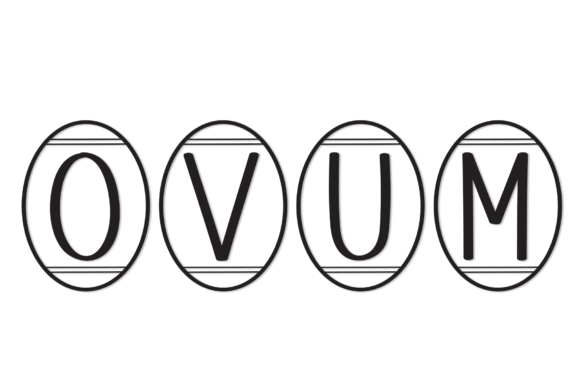
Journey into the Realm of Artistic Expression with Ovum Font, a Decorative Masterpiece
In the vast world of typography, there lies a font that captivates the essence of elegance and artistry - Ovum Font. This decorative masterpiece, crafted by the skilled hands of Roronoa Zoro S.P.D., is an eloquent testament to the power of visual storytelling. With its sweeping curves, delicate flourishes, and intricate details, Ovum Font transcends the boundaries of ordinary type, inviting you to embark on a creative odyssey like no other.
As you delve into the depths of Ovum Font's characters, you'll discover a symphony of form and function. Each letter, meticulously designed with the utmost care, carries the weight of history and the promise of endless possibility. Whether you're a seasoned designer seeking to elevate your projects or a budding artist yearning to leave your mark on the world, Ovum Font is your trusted companion, ready to breathe life into your creative visions.
Step into the spotlight with Ovum Font, and watch as your words dance across the page, captivating audiences with their grace and charm. Whether you're crafting film scripts, greeting cards, invitations, or branding materials, Ovum Font possesses the versatility to transform your ideas into stunning visual experiences. Its organic and beautiful form adds a touch of sophistication to any project, leaving an indelible impression that lingers in the minds of your viewers.
With Ovum Font at your fingertips, you'll find yourself effortlessly weaving tales that transport readers to enchanted realms, ignite imaginations, and stir hearts. Its delicate ornaments, reminiscent of bygone eras, lend an air of timeless elegance to your creations, ensuring that your messages resonate with a profound impact.
Welcome Ovum Font into your creative arsenal, and unlock a world of possibilities. As you explore the depths of its artistry, you'll discover a font that not only elevates your designs but also reflects your unique style and personality. Let Ovum Font be your muse, your faithful companion on the journey to creative greatness.